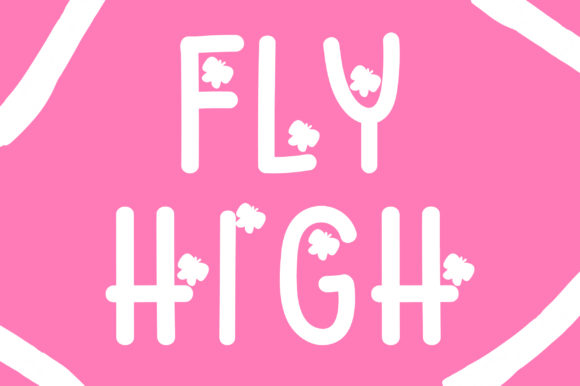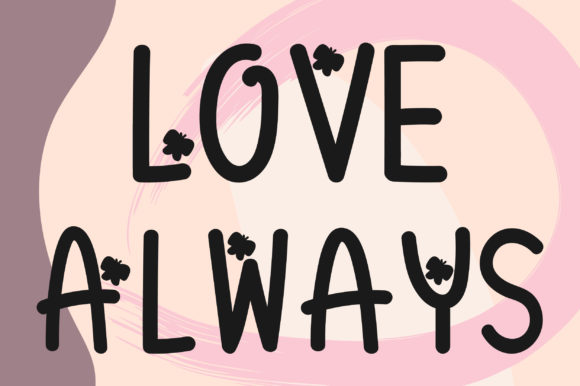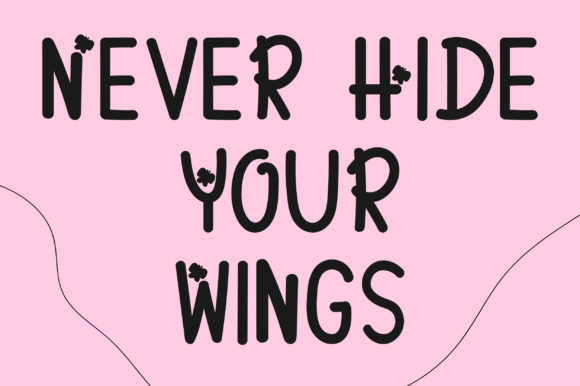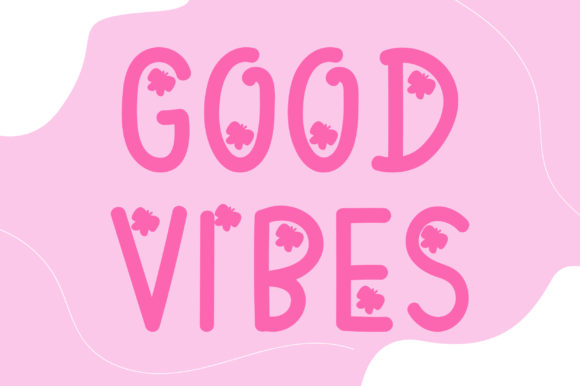
Unleash Your Creativity with the Delicate Charm of Butterfly Font
Remember that moment when you stumbled upon the perfect font for your project? The one that instantly elevated your design from ordinary to extraordinary? For designers, it’s a feeling like no other – a spark of inspiration that sets your imagination ablaze. And, for those who’ve been searching for the perfect display font, we’re excited to introduce you to the Butterfly Font.
This simple yet elegant font is designed to add a touch of whimsy and sophistication to your creative endeavors. Whether you’re crafting a wedding invitation, a logo, or a social media graphic, the Butterfly Font is sure to make your design stand out. Its delicate charm and neat lettering make it a valuable addition to any designer’s toolkit, allowing you to add a personal touch to your projects with ease.
Key Features of Butterfly Font
• Font Family: Butterfly Font is a modern, elegant sans-serif font designed for various digital applications.
• Character Set: Supports a wide range of languages, including Latin, Cyrillic, and Greek alphabets, as well as various diacritical marks.
• Unique Characteristics: Butterfly Font features a distinctive, flowing design with a subtle flair at the ends of the stems, giving it a unique and elegant appearance.
Butterfly Font Review
✨ I have to say, the first thing I noticed about the Butterfly Font was its whimsical feel. It’s perfect for adding a touch of elegance and sophistication to any design. The combination of smooth lines and delicate curves creates a sense of lightness and airiness, making it ideal for feminine or children’s projects. The font also has a wide range of sizes, making it versatile for both small and large-scale designs.
✨ Another great feature of the Butterfly Font is its customization options. It’s available in various weights and styles, including bold, italic, and bold italic, which gives designers a lot of flexibility when it comes to creating visual hierarchies and emphasis.
⚠️ However, one limitation of the Butterfly Font is its limited character set. While it’s perfect for creating titles and headings, it may not be suitable for body text, especially for longer pieces of content. Additionally, the font may not be as readable in certain font sizes or resolutions, which could impact its overall effectiveness.
⚠️ Lastly, the font may require some adjustments to the kerning and spacing to ensure proper alignment and balance, especially in combination with other fonts.
Overall, the Butterfly Font is a beautiful and elegant addition to any design project. While it has some limitations, its unique style and customization options make it a great choice for designers looking to add a touch of whimsy and sophistication to their work.
• Perfect for titles and headings
• Wide range of sizes and customization options
• Available in various weights and styles
• May not be suitable for body text or longer pieces of content
• May require adjustments to kerning and spacing
For the most effective use of the Butterfly Font, keep the following tips in mind:
• Use the font for titles and headings to add visual interest.
• Pair the font with a clean and simple background to make it stand out.
• Experiment with different font sizes and colors to achieve the desired effect.